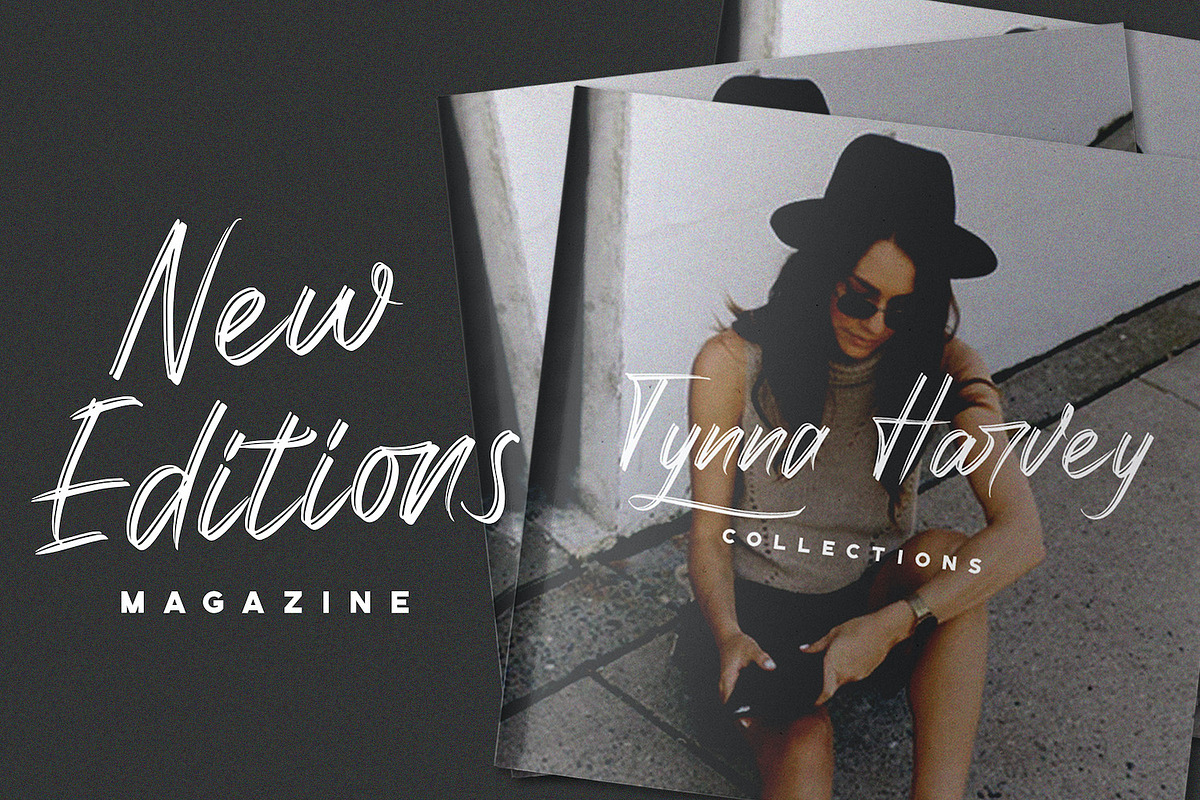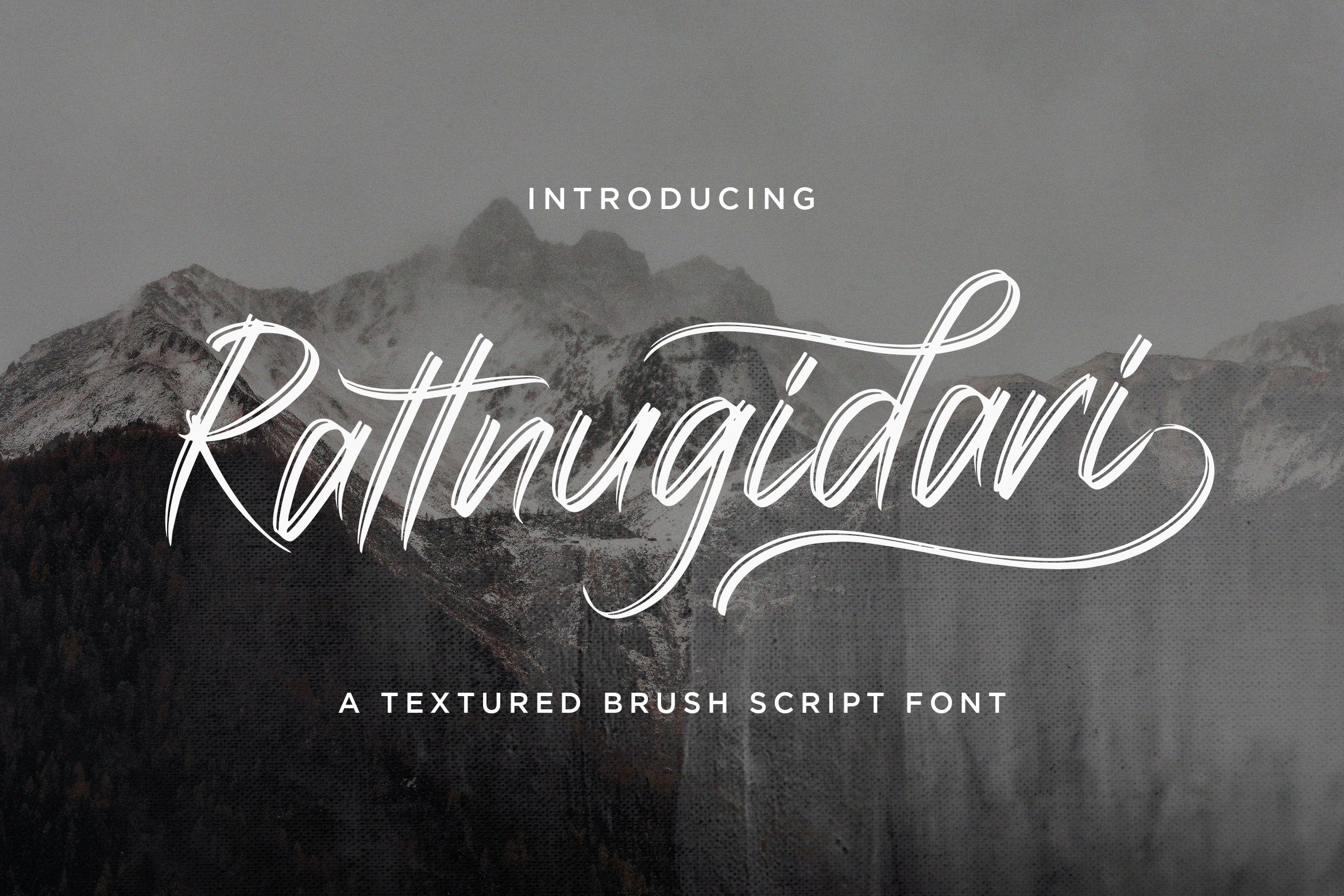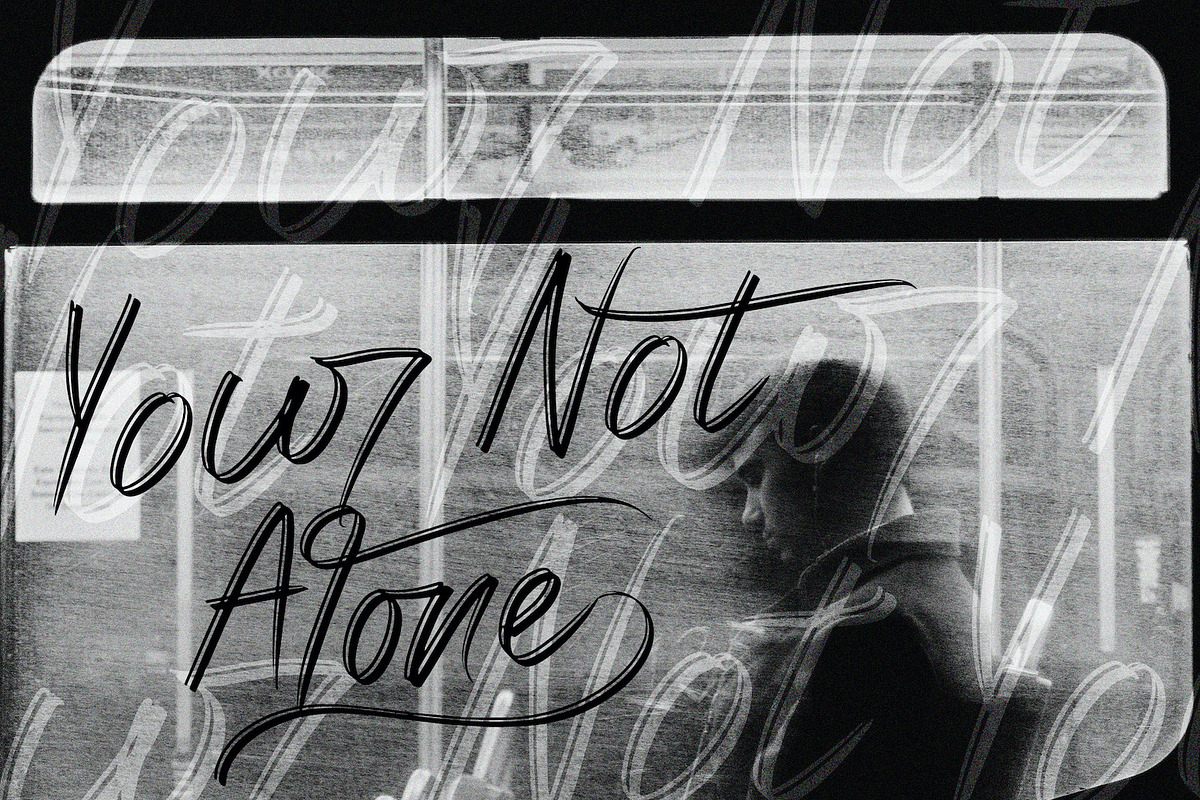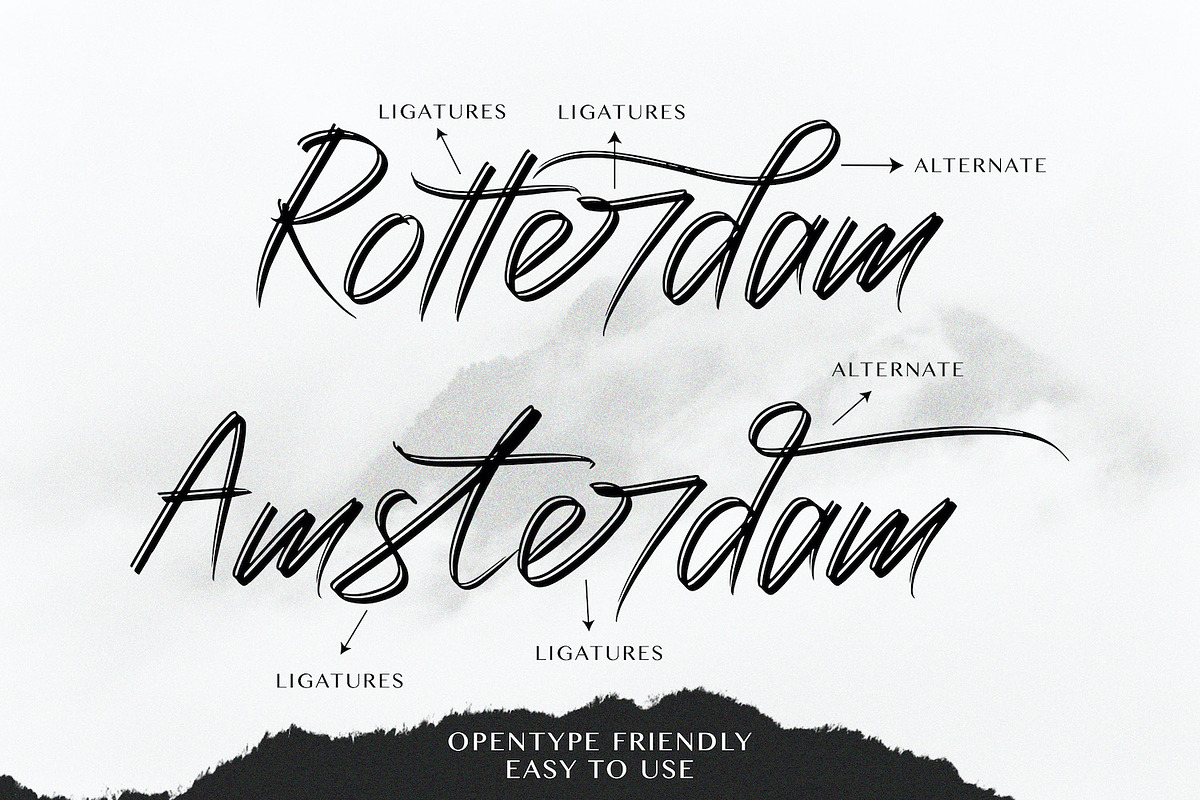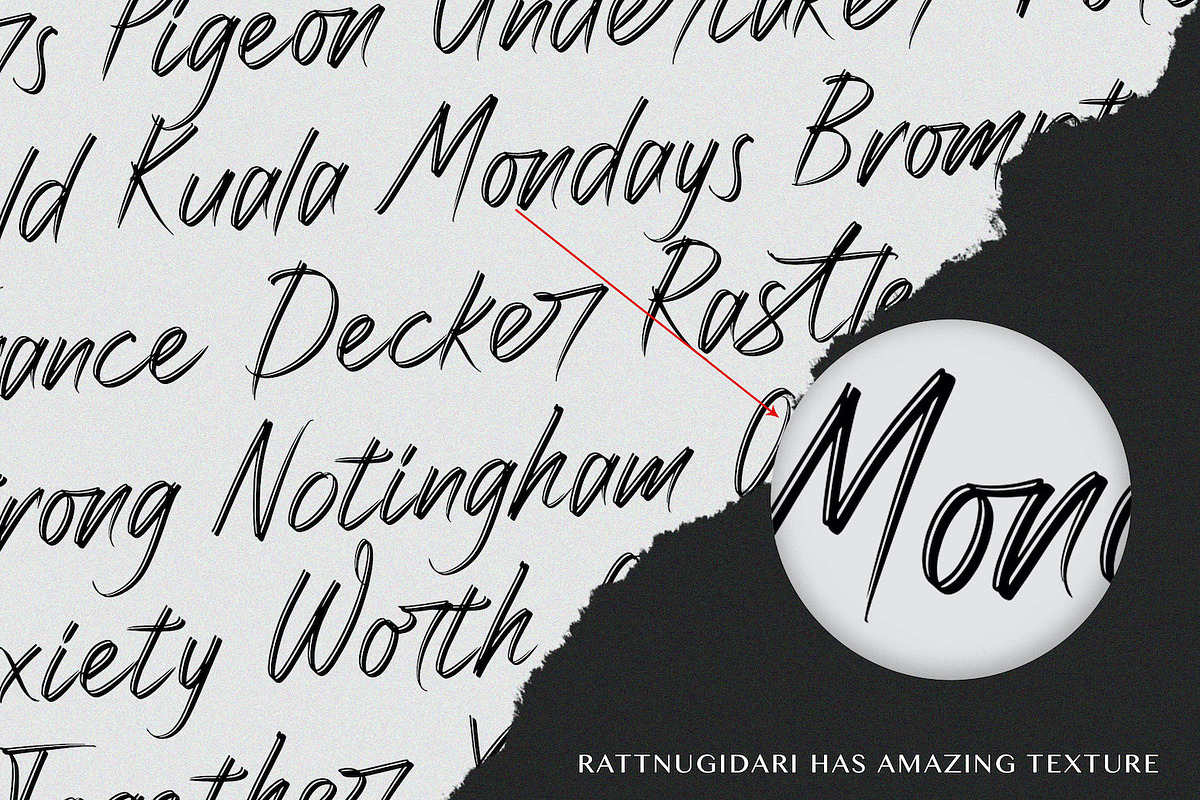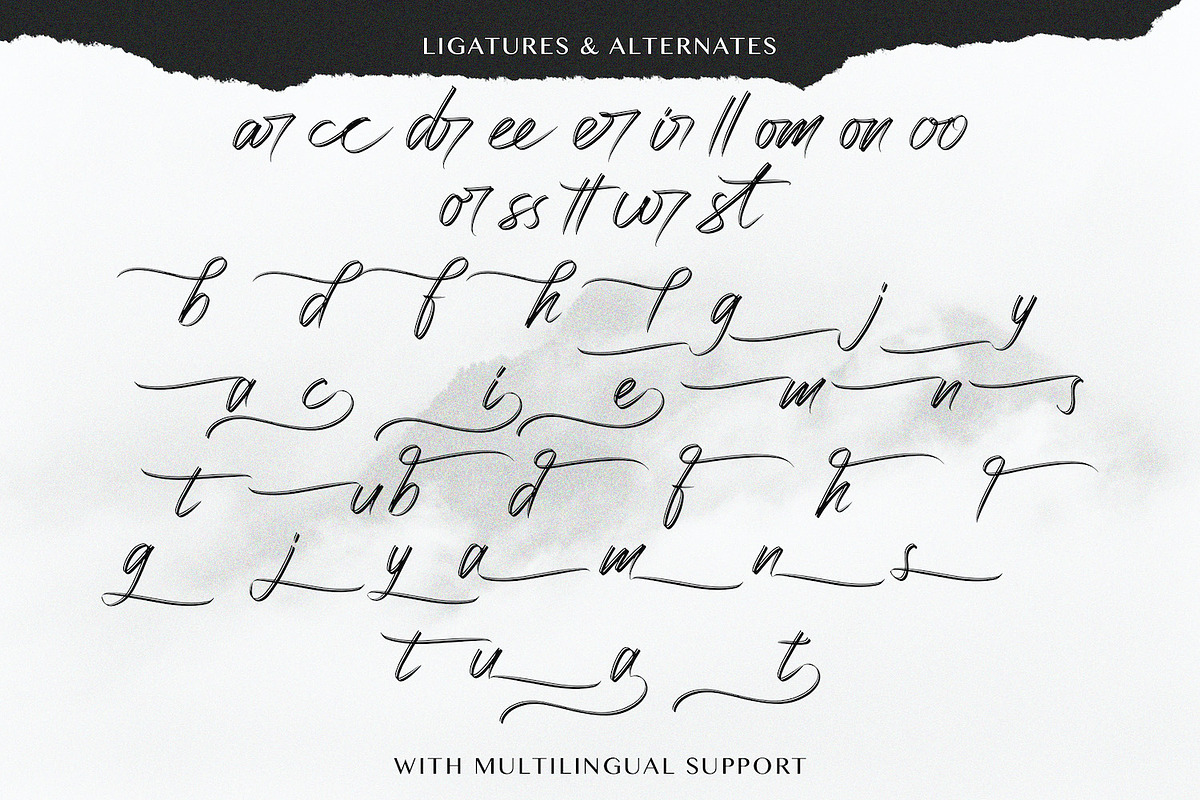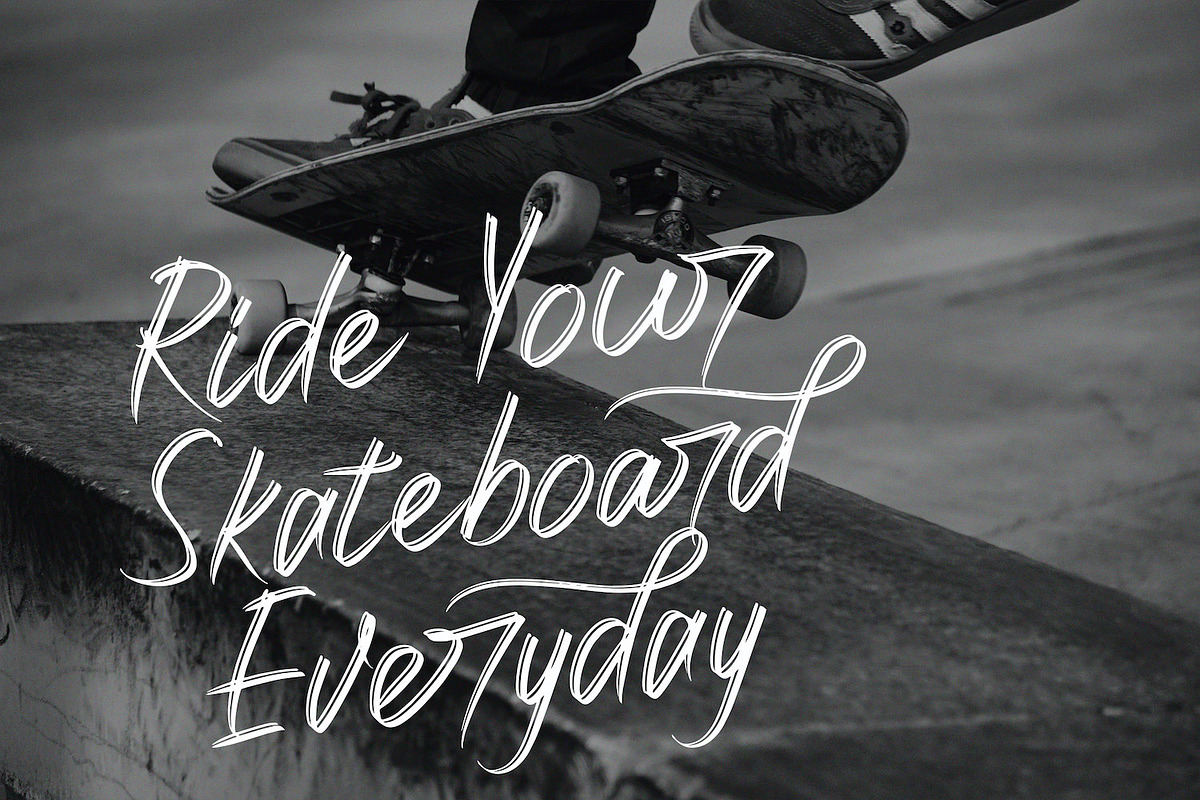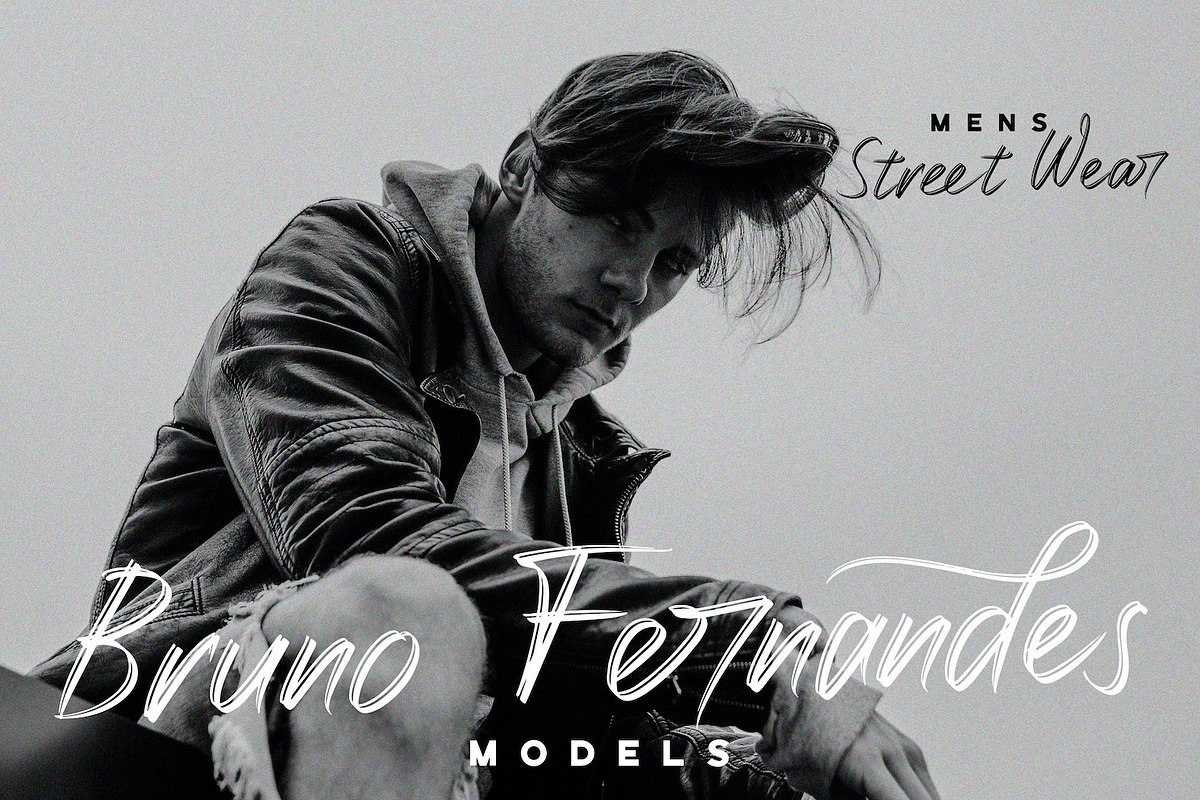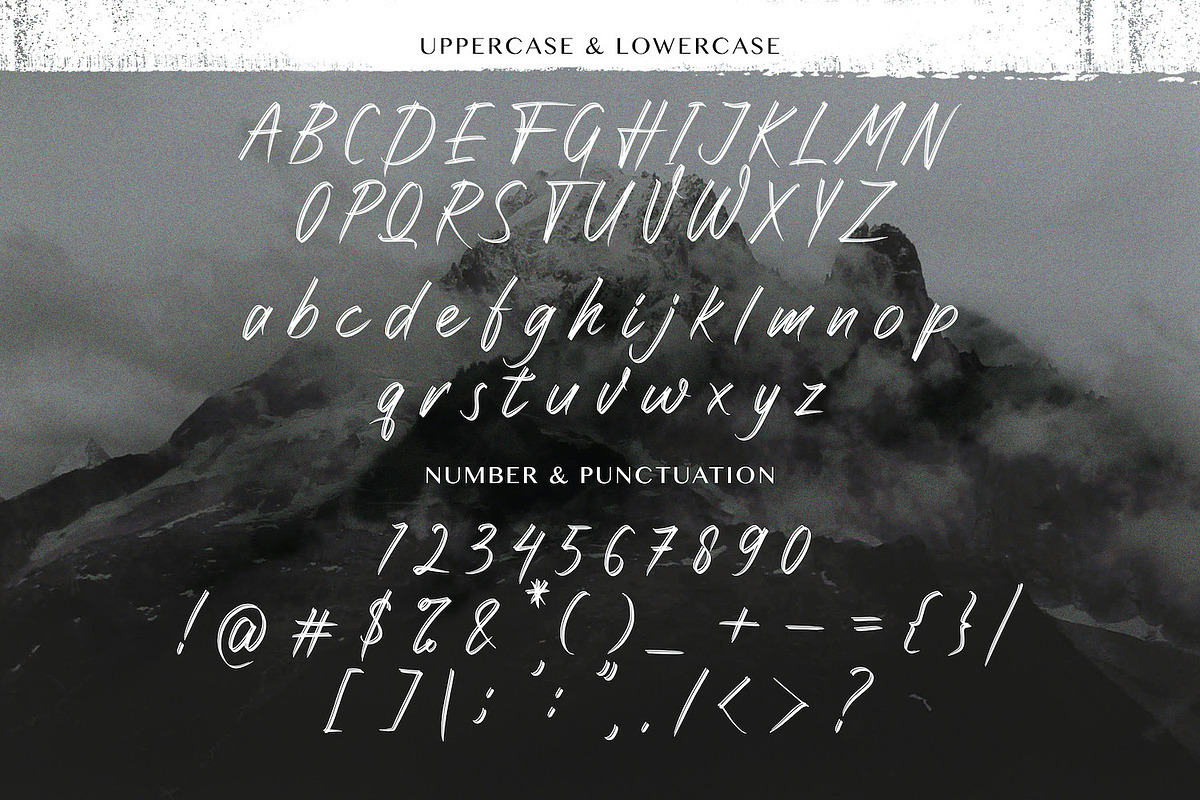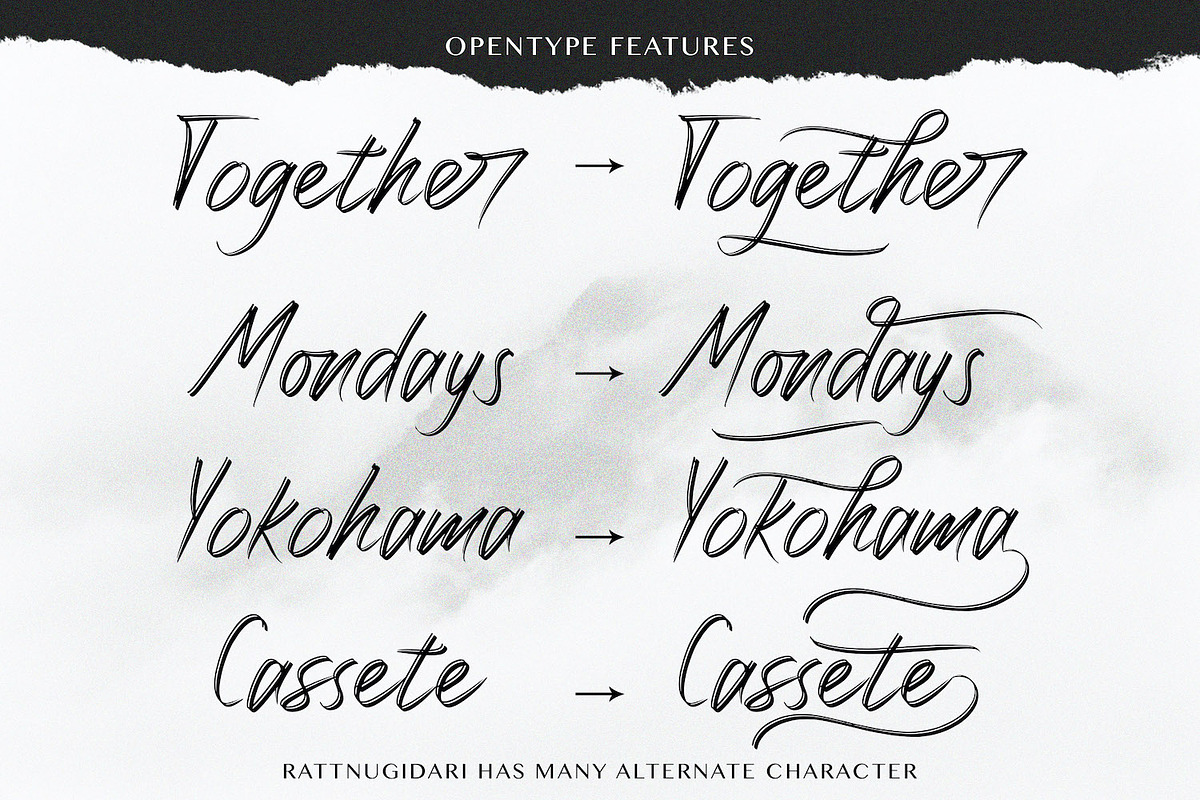
Rattnugidari - Brush Script Font
Introducing Rattnugidari - Brush Script Font
Rattnugidari is a textured brush script font. This font is authentic and fresh, and can really complement textured and friendly designs. This font reads well, and looks best in headlines or displays. The Rattnugidari is perfectly suited for logos, branding, posters and much more!